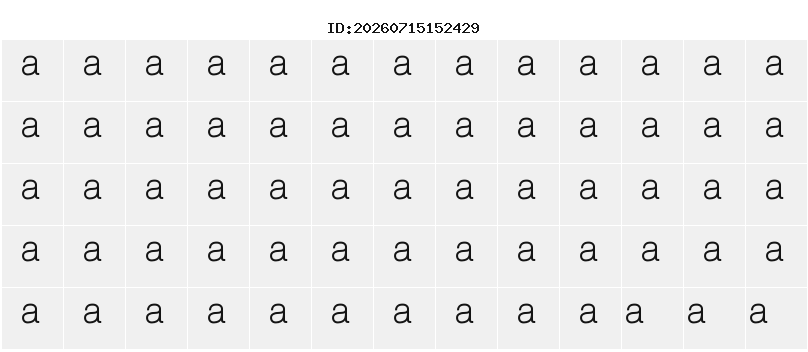
alghorie std Preview
About alghorie std.ttf
alghorie std.ttf is a modern, elegant sans-serif font designed for ultimate readability and visual harmony. Perfect for branding, headlines, web design, and print materials.